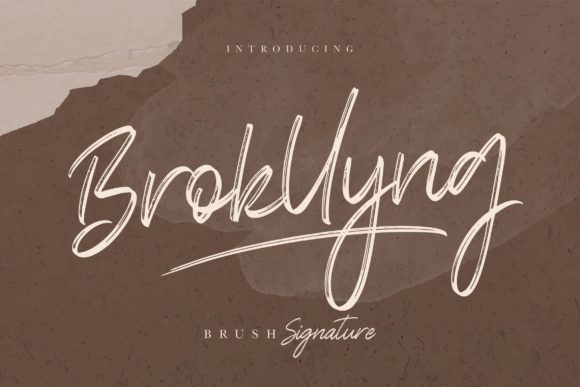
The Designer’s Delight: Brokllyng Font
Have you ever been in the middle of a design project, and suddenly, you’re stuck on finding the perfect font? I recall a recent experience where a client asked for a custom logo with a “handwritten, brush-style” feel. After hours of searching, I stumbled upon the Brokllyng Font – a spectacular brush-style handwritten font that instantly elevated my design game! ✨
An Honest Review of Brokllyng Font
- ✨ Unique and Creative: Brokllyng Font brings a fresh, artistic vibe to any design project.
- ✅ PUA Encoded: The font’s PUA encoding makes it easy to access all glyphs and swashes, giving you endless creative possibilities.
- 💫 Highly Versatile: From logos and branding to social media graphics and invitations, Brokllyng Font adapts seamlessly to various design needs.
While Brokllyng Font is an excellent choice, there are a few minor considerations to keep in mind: ⚠️
- 🤔 Legibility at Small Sizes: As with many script fonts, Brokllyng may lose legibility when used at very small sizes. It’s best suited for headlines or larger text.
- ⚠️ Overuse of Swashes: With great power comes great responsibility! Be mindful of overusing swashes, as it can make your design look cluttered.
Although the origins of Brokllyng Font remain a mystery, it’s clear that the designer was inspired by the world of art and creativity. The font’s unique blend of brush-style elements and handwritten flair makes it a standout in the world of typography.
| Author | CreatypeStudio |